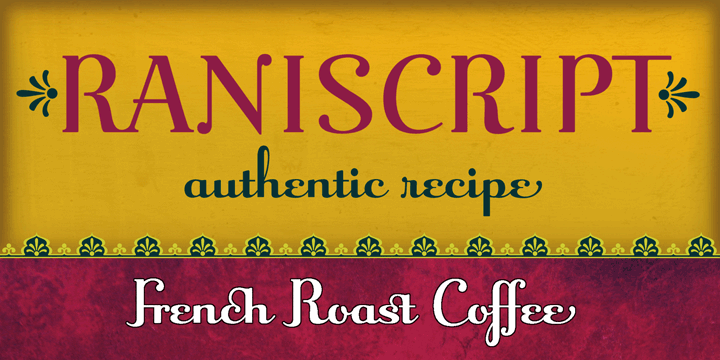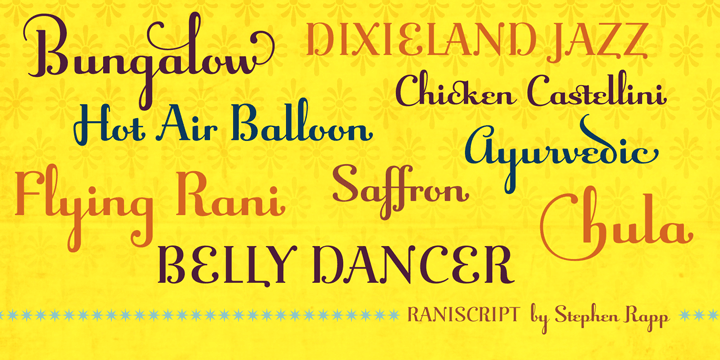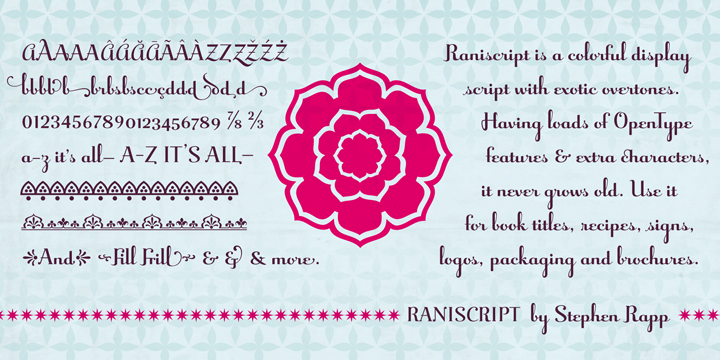
Raniscript
Font Family by Stephen Rapp
Raniscript started out as an idea for a bold and strongly structured ronde style script with some contemporary touches.. As I tinkered with various forms it took on a life of its own. Having an old world feel, it makes me visualize faded shop signs from India written in English. The name comes from a series of colorful vintage matchbook designs advertising the Flying Rani. You'll find Raniscript ideal for packaging, book titles, brochures or anything requiring a robust display treatment. It comes fully loaded for OpenType savvy applications. Three full sets of caps are included. By clicking the Titling button in Illustrator you can type using an all caps set that includes ligatures, case sensitive punctuation and language coverage. Other features include oldstyle figures, Central European language support, fractions, contextual letter substitution, swash characters, and ornaments.